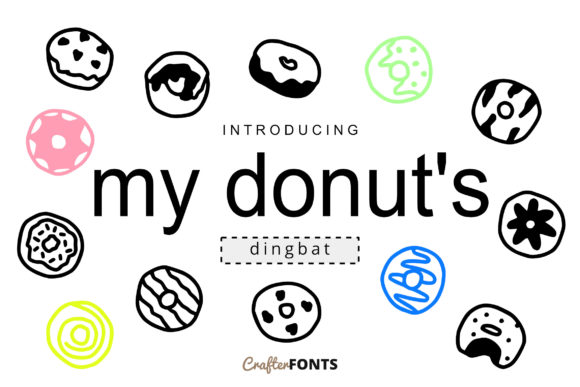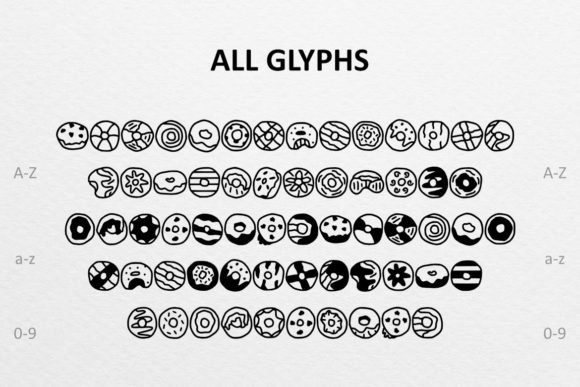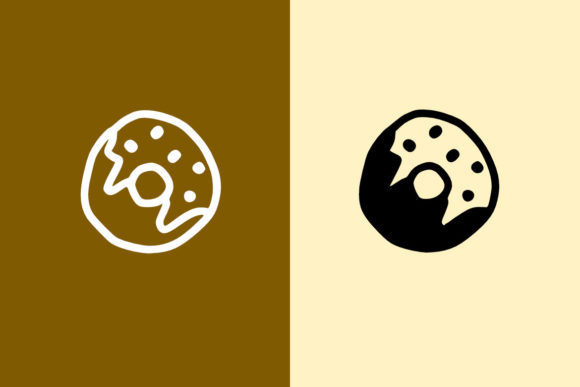
My Donut’s Font
About My Donut’s Font
My Donut’s is an eye-catching and charming dingbat font designed to help you create adorable and fun designs by typing capital and small letters as well as numbered and symbolic characters. Its donut-themed illustrations make it perfect for a wide range of projects that need a sweet touch, from designing a friendly and cheerful business card to adding a cute and friendly flair to a logo, menu, or other visual element. My Donut’s is a playful and functional font, making it easy to use for a wide range of projects.
One of the best things about My Donut’s is its variety of adorable and charming illustrations. The many donuts and sweet treats make My Donut’s unique and memorable for projects that need a sweet touch. Whether you’re designing a business card for a friendly florist or adding a cute and cheerful flair to a logo, menu, or other visual element, My Donut’s will add a touch of charm and warmth to your design.
Another great thing about My Donut’s is how easy to use it is. With a few keystrokes, users can create a wide range of colorful and memorable designs. The many sweet treats and adorable illustrations make My Donut’s easy to read and use, while its playful design makes it perfect for a wide range of projects. All in all, My Donut’s is an adorable and charming font that will help you create fun and original designs for a wide range of projects that need a cute and sweet twist.